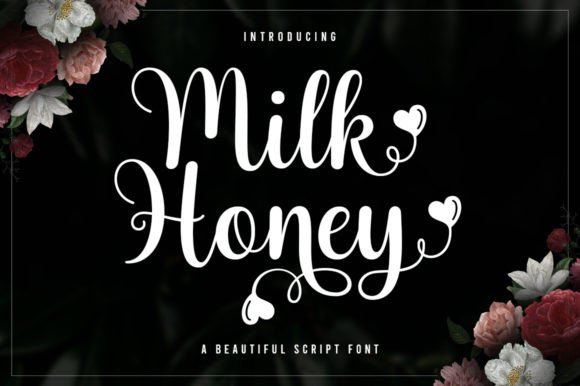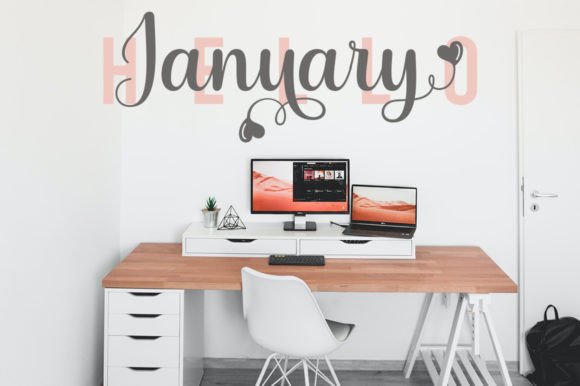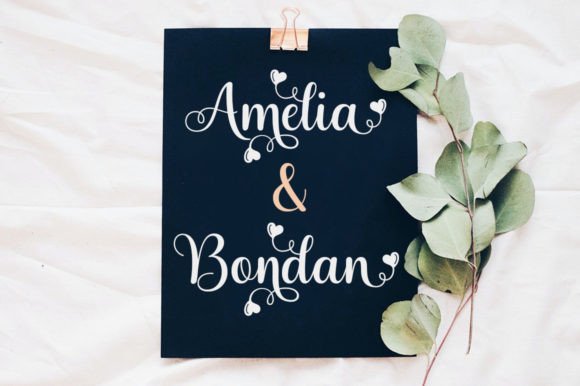
Milk Honey Font: Romantic Calligraphy Script for Wedding Design
About the Milk Honey Font
Welcome to the world of Milk Honey Font, a typeface that will inspire your next great project. Milk Honey is a modern and romantic script font. It can be used for various purposes. such as titles, signatures, logos, correspondence, wedding invitations, letterheads, nameplates, labels, newsletters, posters, badges and so much more
Milk Honey’s romantic style excels in headlines, branding materials, and short-form text like invitations or signage where its elegant flourishes add a touch of sophistication. It is less suitable for body text or UI elements; the delicate strokes would likely become illegible at smaller sizes and negatively impact readability in longer passages.
Its inherent charm pairs well with clean sans-serif fonts like Montserrat or Lato for a balanced contrast, or a geometric sans-serif like Futura for a more modern feel. For a more luxurious aesthetic, consider pairing it with a classic serif like Garamond.
Milk Honey projects a softly elegant and romantic personality, ideal for brands focused on beauty, fashion, or luxury goods. Its delicate curves evoke a sense of warmth and intimacy, making it suitable for projects that emphasize sentiment and style.
Milk Honey Font Usage Examples
Milk Honey Font Example